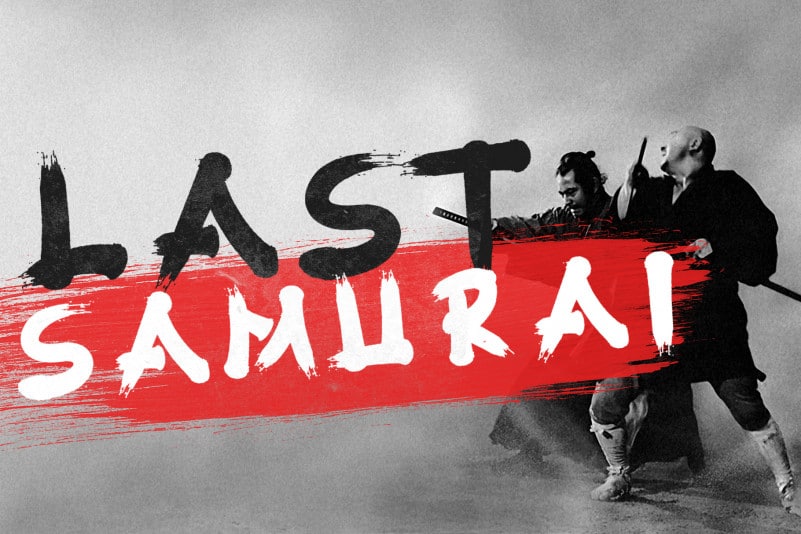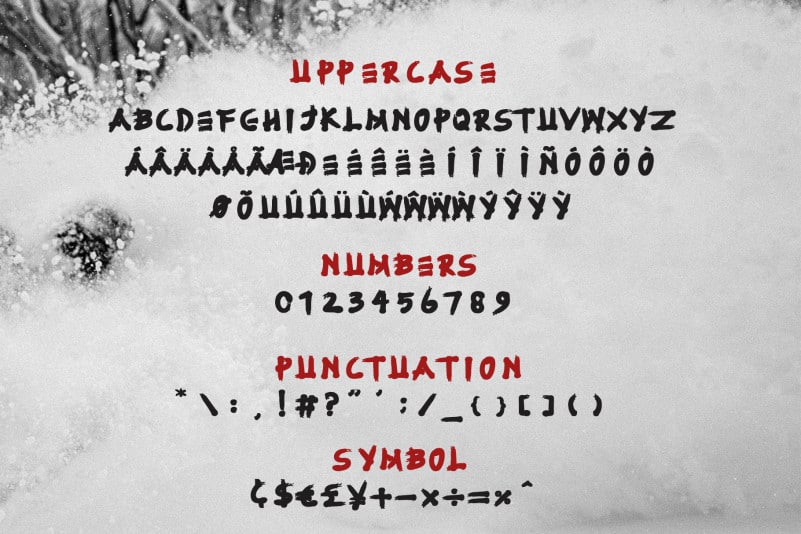
Fujimaru Brush Font
Fujimaru Japanese Brush Font is a bold and handcrafted brush typeface, its have an Asian and oriental looks, a perfect companion for your creative project that has an Asian niche. This Japanese Brush Font can be used as horror effect or even the fun title for cartoon movie, just pick your style :). This Brush Font is doing his best at the heading title,movie poster,quotes text.